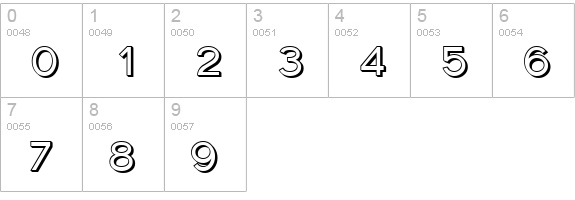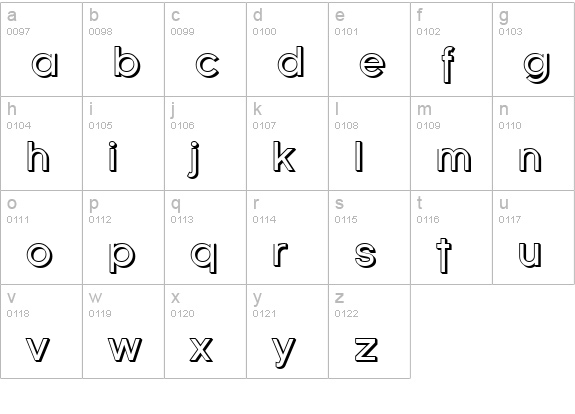
Florencesans Shaded font is a beautifully crafted typeface designed to bring elegance and sophistication to your design projects. This unique font features a stylish shaded effect that adds depth and dimension to your text, making it stand out in a crowd. The intricate details of Florencesans Shaded font make it perfect for branding, logos, headlines, and more. The best part about Florencesans Shaded font is that it is completely free to download at FontsMarket.com. This means you can easily access this stunning font and incorporate it into your designs without any cost. Whether you're working on a personal project or a professional assignment, Florencesans Shaded font is sure to elevate your work and leave a lasting impression. Download this font today and unleash your creativity with this exquisite typeface.